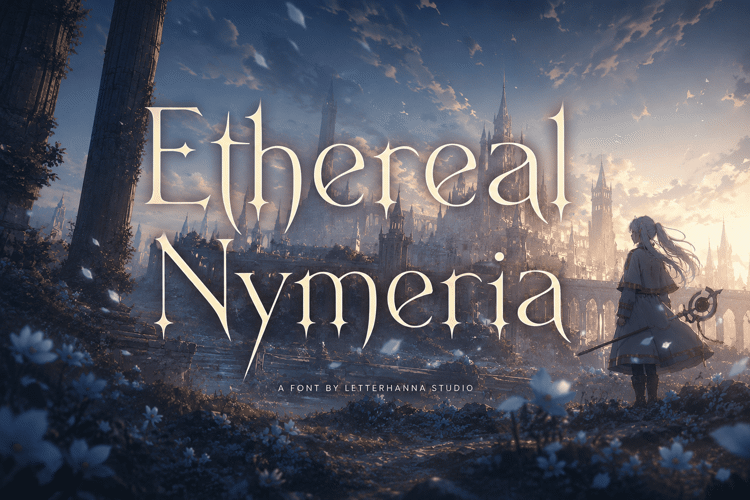
Ethereal Nymeria Font
Some fonts blend in. Ethereal Nymeria commands the room. ✦ High-contrast serifs, star-burst terminals, and razor-thin hairlines — this typeface was built for luxury wedding suites, fantasy covers, and brands that refuse to be ordinary. If your designs deserve an upgrade, this is it. Download now and make every word feel like royalty.